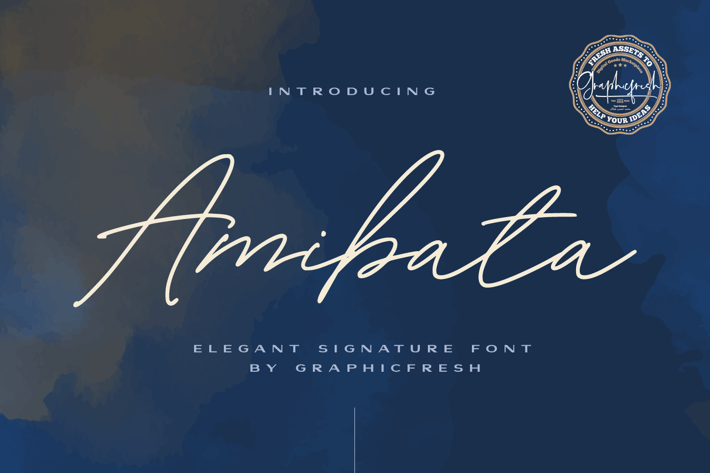
Amibata - Elegant Signature Font
Amibata - Elegant Signature Font. It comes with an elegant and modern style which is perfect to make any design stand out! This font is perfect for branding, wedding invites, magazines, mugs, business cards, quotes, posters, and more.
Amibata Type Features:
-Lowercase
- Numerals & Punctuations
- Suitable for Headlines, Logotypes, Signs, Posters, Letterhead, T-Shirt and many more.
- Support International Language